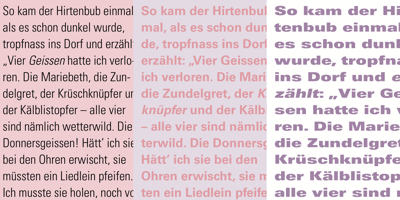
Friary Pro Font
Friary Pro Font is perfect for religious organizations, monastic communities, spiritual retreat centers, theological seminaries, church communications, religious publishing, contemplative wellness programs, and sacred lifestyle brands where spiritual devotion and religious authenticity are essential.
What makes Friary Pro Font exciting is its contemplative, sacred character that perfectly captures the peaceful devotion and spiritual wisdom of monastic traditions and religious contemplation. This font features serene letterforms with thoughtful proportions and spiritual gravitas that mirror the quiet dedication of religious communities and the timeless appeal of sacred text traditions. Its reverent presence instantly communicates spiritual authenticity, religious authority, and contemplative peace that resonates with faith communities, spiritual seekers, and anyone drawn to the transformative power of religious devotion and monastic wisdom.
Friary Pro Font family includes thin, light, regular, medium, bold, and black weights with corresponding italic styles, plus religious decorative elements like sacred symbols, contemplative ornaments, spiritual flourishes, and monastic accents that enhance the sacred atmosphere of any faith-focused design project.